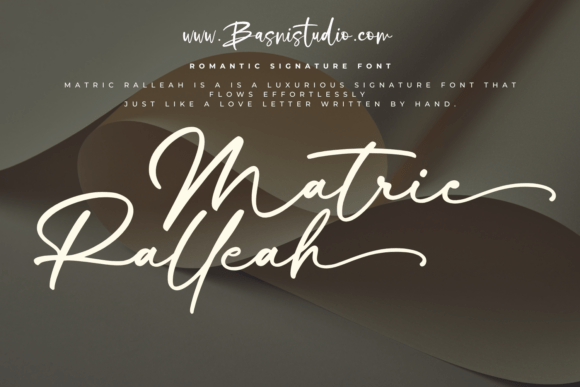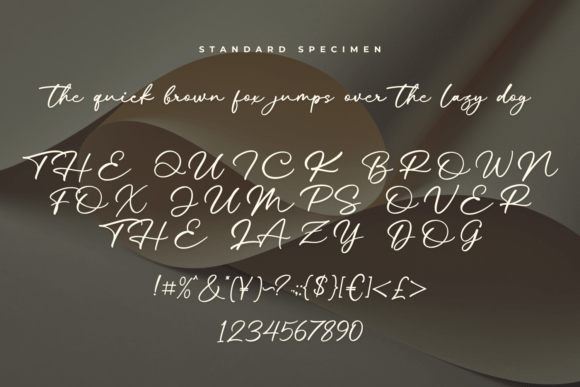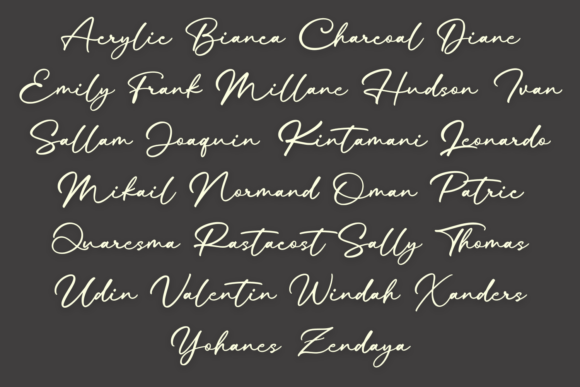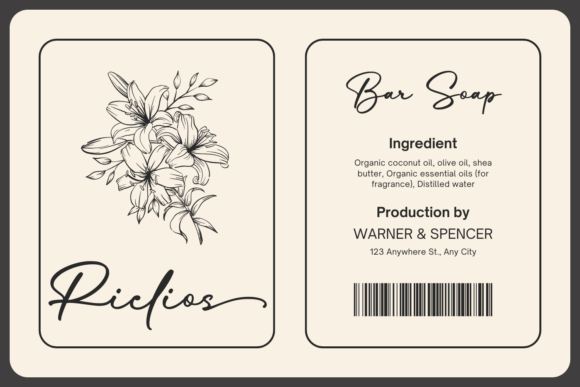
Matric Ralleah Font: Elegant Script for Wedding Invitations & Logo Design
About the Matric Ralleah Font
Experience the unique personality of Matric Ralleah Font, a font designed for impact. Looking for the perfect handwritten script to add a touch of romance and sophistication to your designs? Matric Ralleah is a luxurious signature font that flows effortlessly, just like a love letter written by hand. Whether you’re crafting wedding stationery, branding a luxury product, or creating dreamy social media posts, Matric Ralleah adds a touch of love and sophistication to every project.
Matric Ralleah excels in applications requiring a touch of elegant sophistication, such as wedding invitations, luxury branding, and short-form social media content. Its flowing script lends itself well to logos, headlines, and short quotes where readability isn’t paramount. However, its ornate nature makes it unsuitable for body text or UI elements, where clear and concise readability is crucial.
Pairing Matric Ralleah effectively requires a complementary typeface that provides contrast. A clean sans-serif like Montserrat or a geometric sans-serif such as Futura would create a sophisticated balance. For a warmer feel, consider pairing it with a classic serif font like Garamond or a more modern serif like Playfair Display.
The font’s core personality is undeniably elegant and romantic. It conveys luxury and a sense of refined hand-crafted quality, ideal for brands projecting sophistication and timeless appeal.